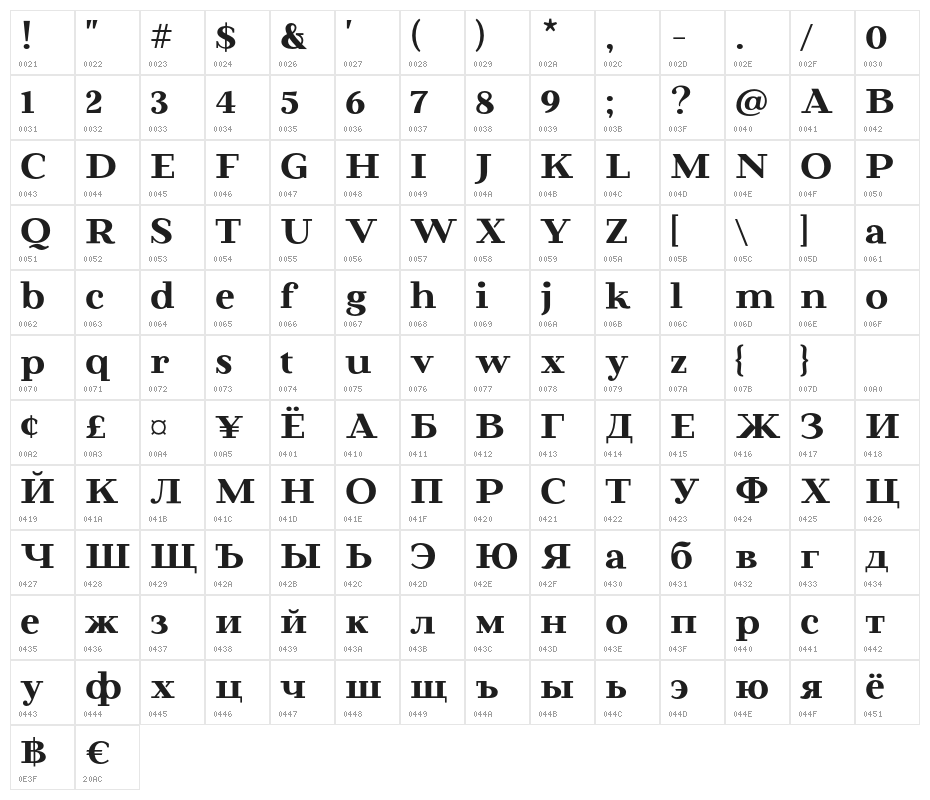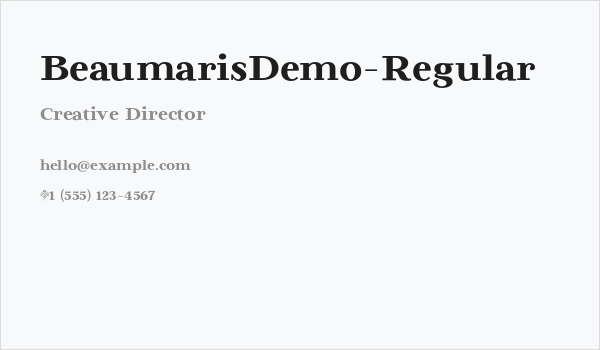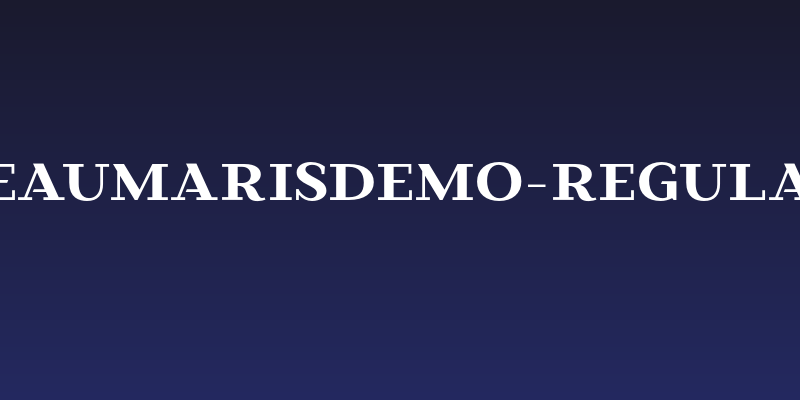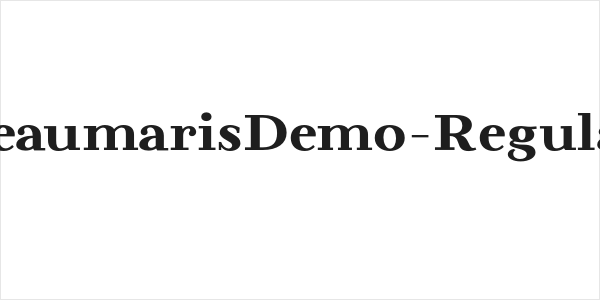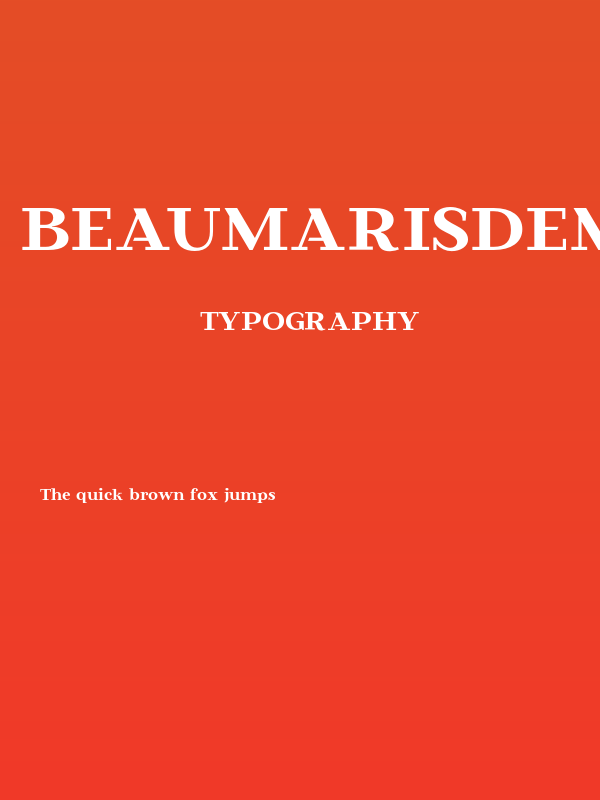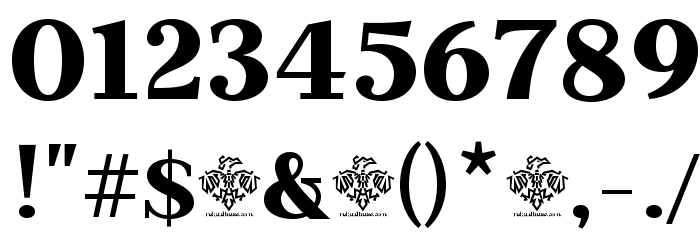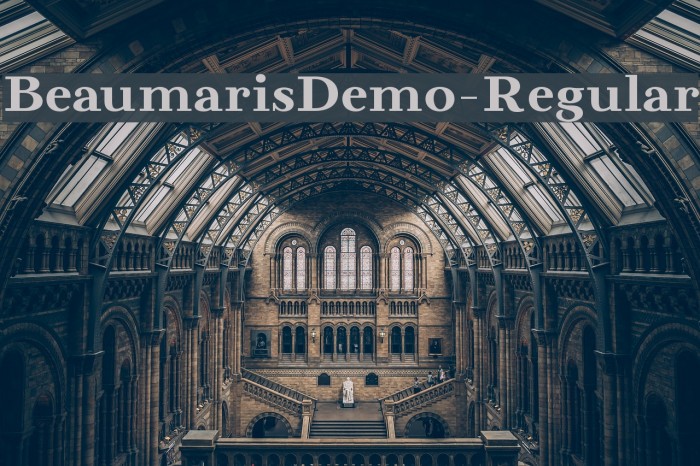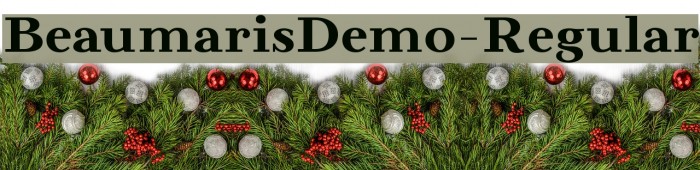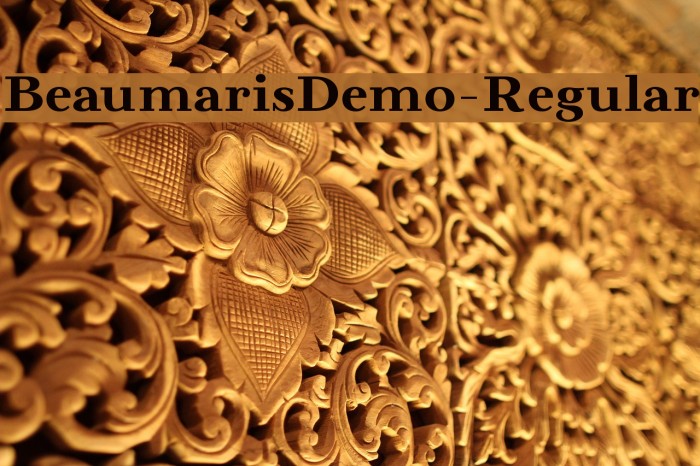
BeaumarisDemo-Regular Font
BeaumarisDemo-Regular Description
This font exhibits a classic serif style with strong, bold strokes and a traditional appearance. The uppercase letters are well-defined with a slight flair at the ends of the strokes, giving them a distinguished look. The lowercase letters maintain a consistent style, with rounded forms and a balanced weight that ensures readability. Numbers are robust and clear, making them suitable for various applications. The special characters are designed to complement the overall aesthetic, maintaining the same boldness and clarity. This font is ideal for projects that require a touch of elegance and formality.
| Proposed Projects | Ideal for book covers, formal invitations, branding, and editorial design. |